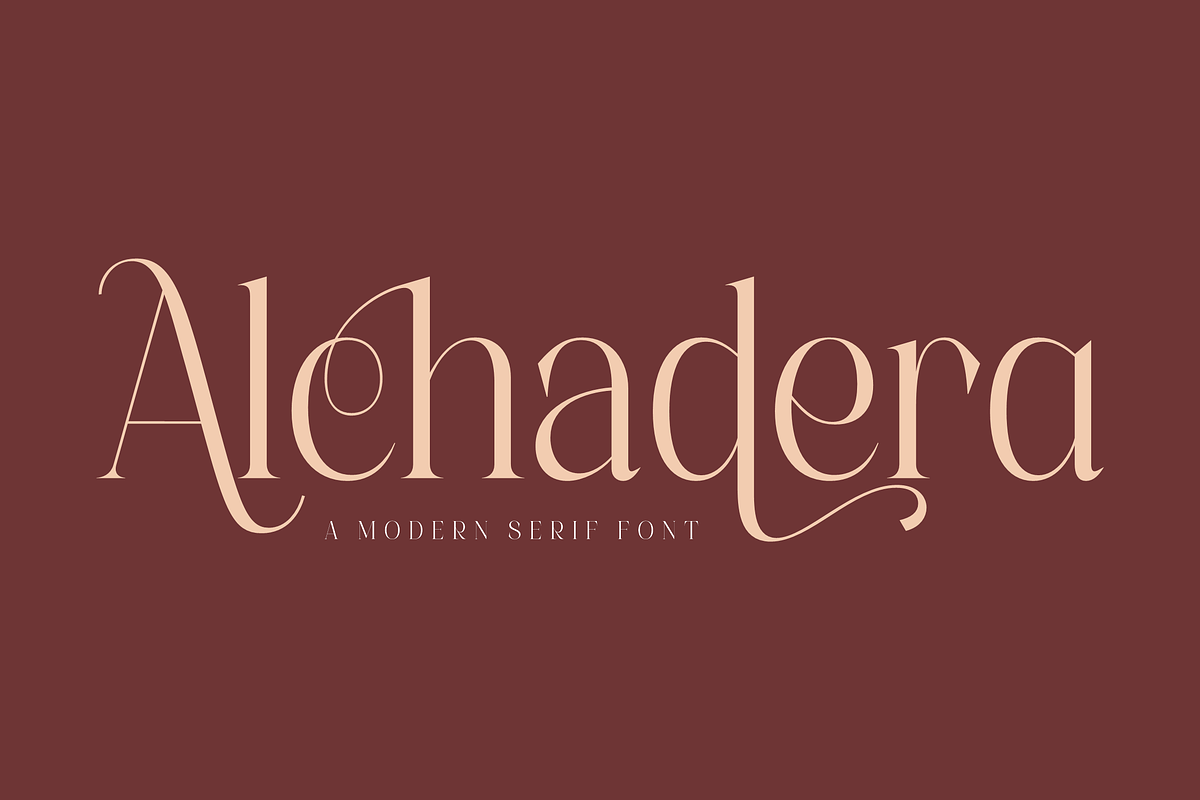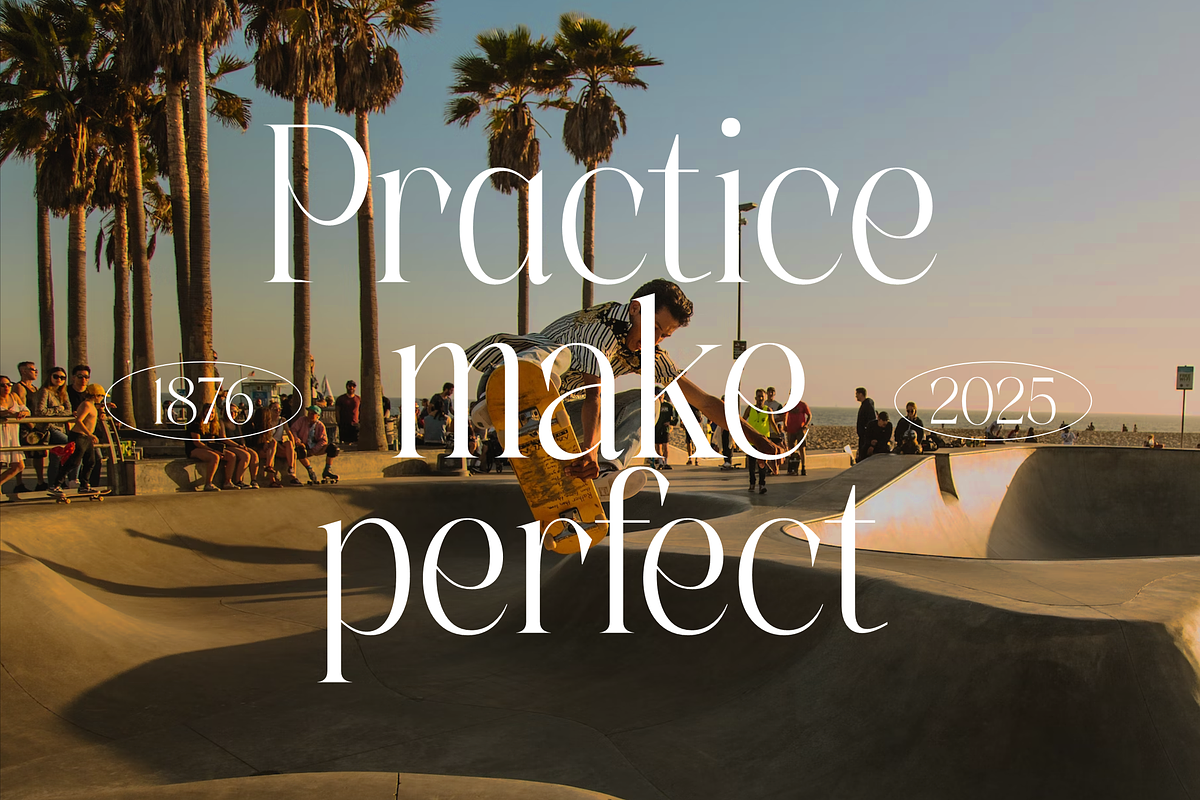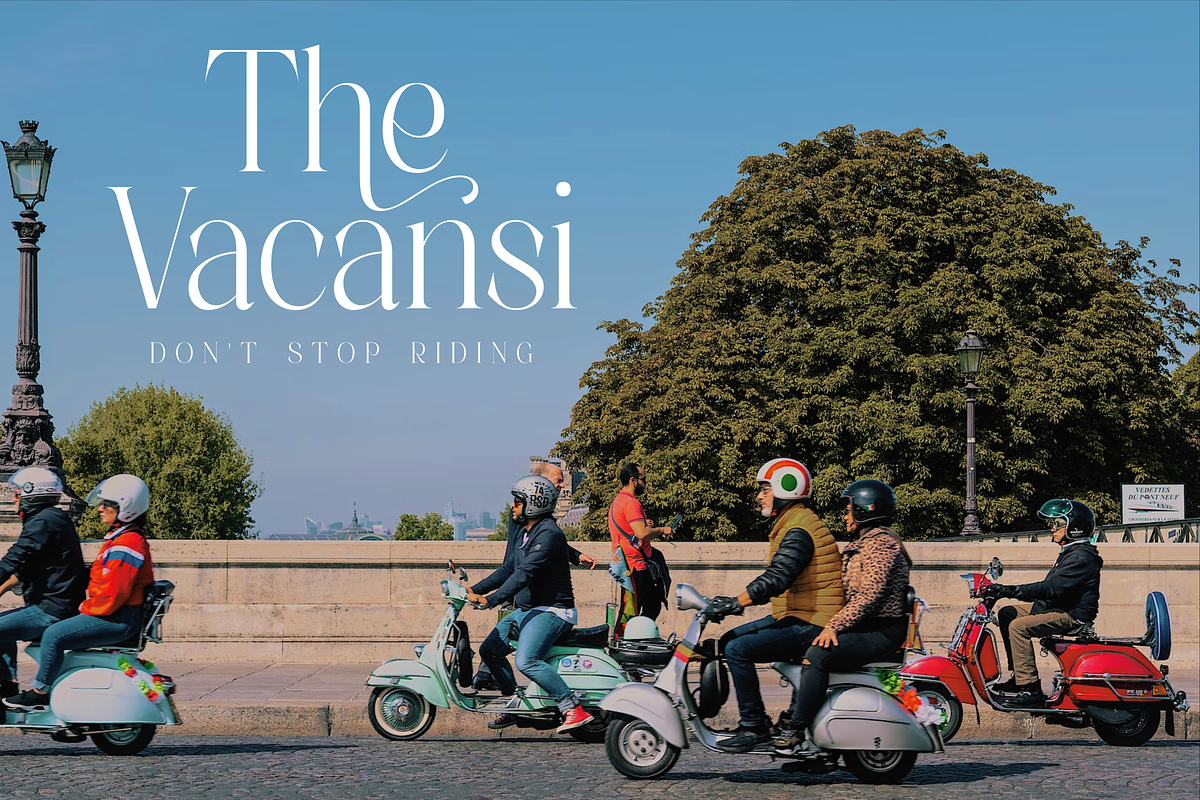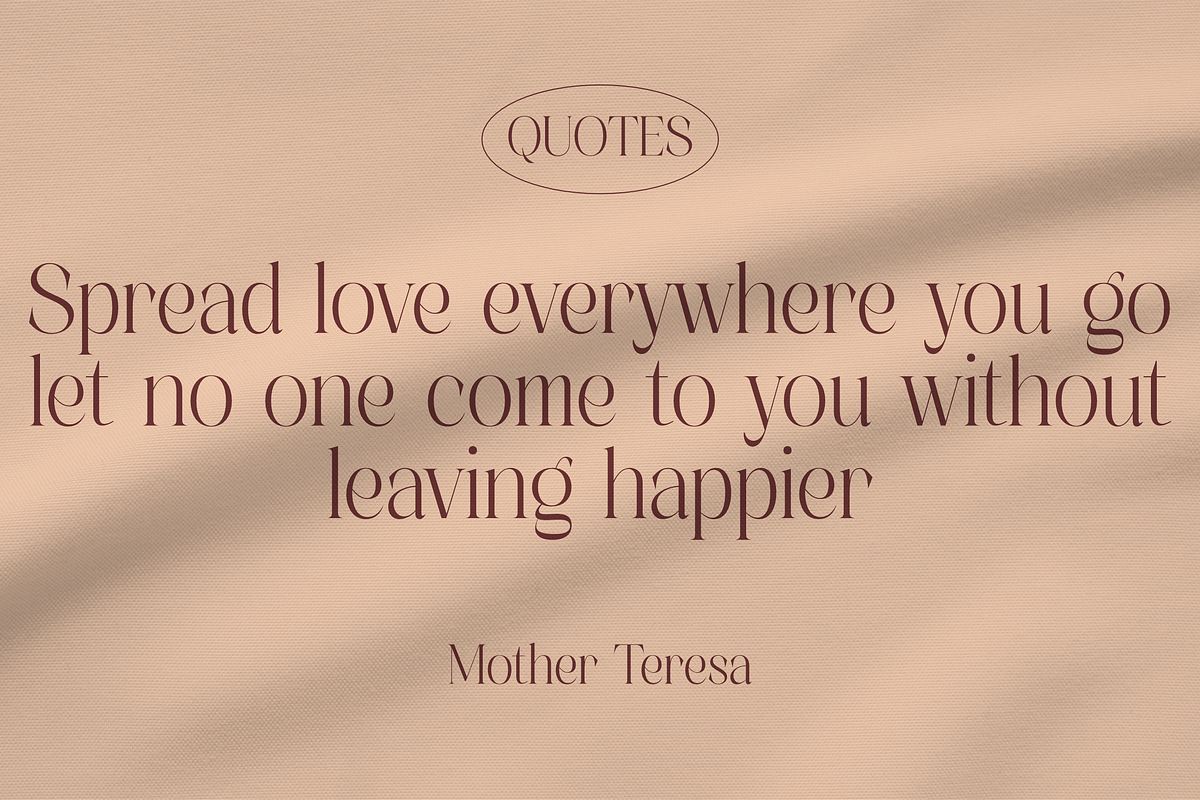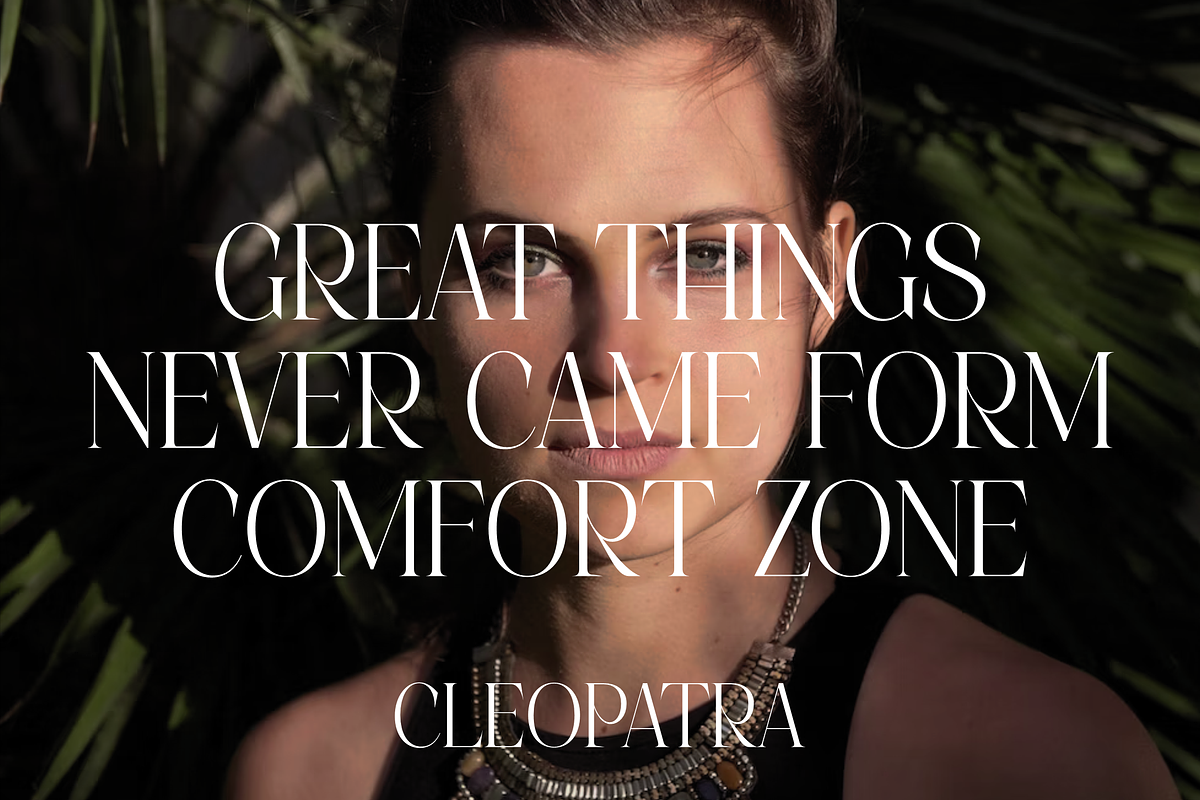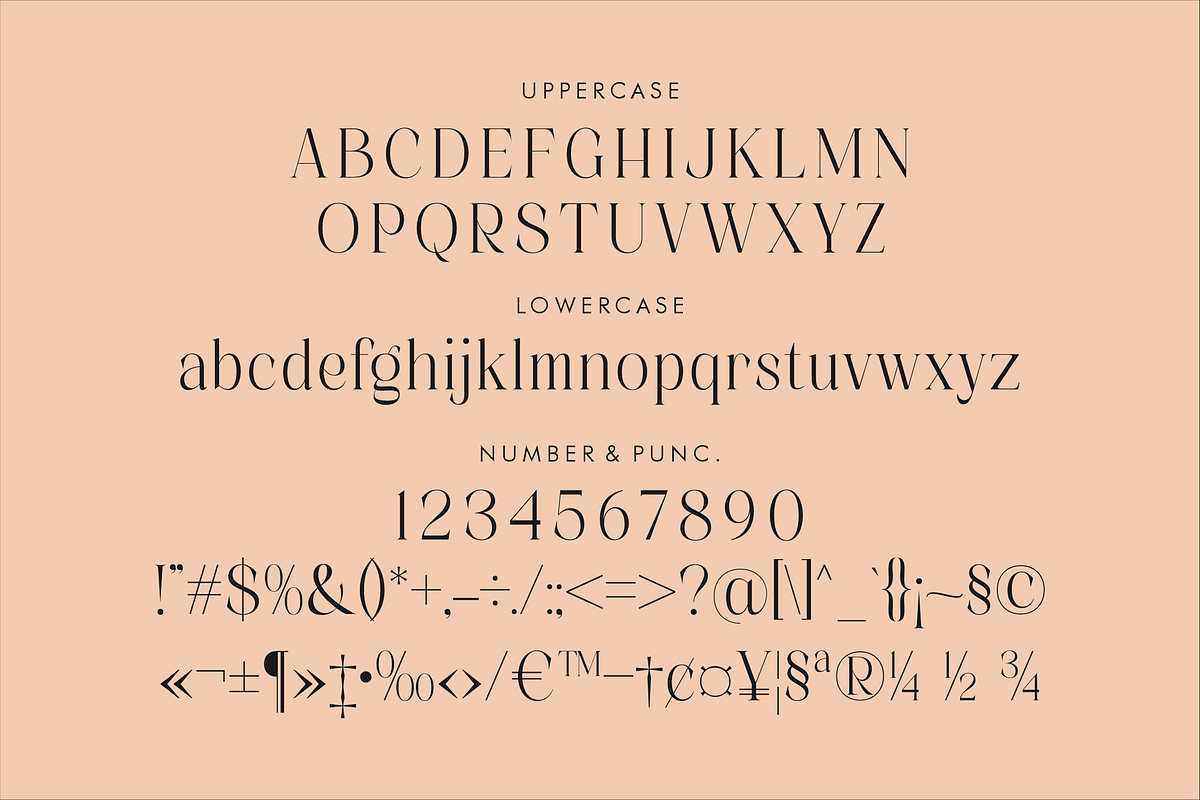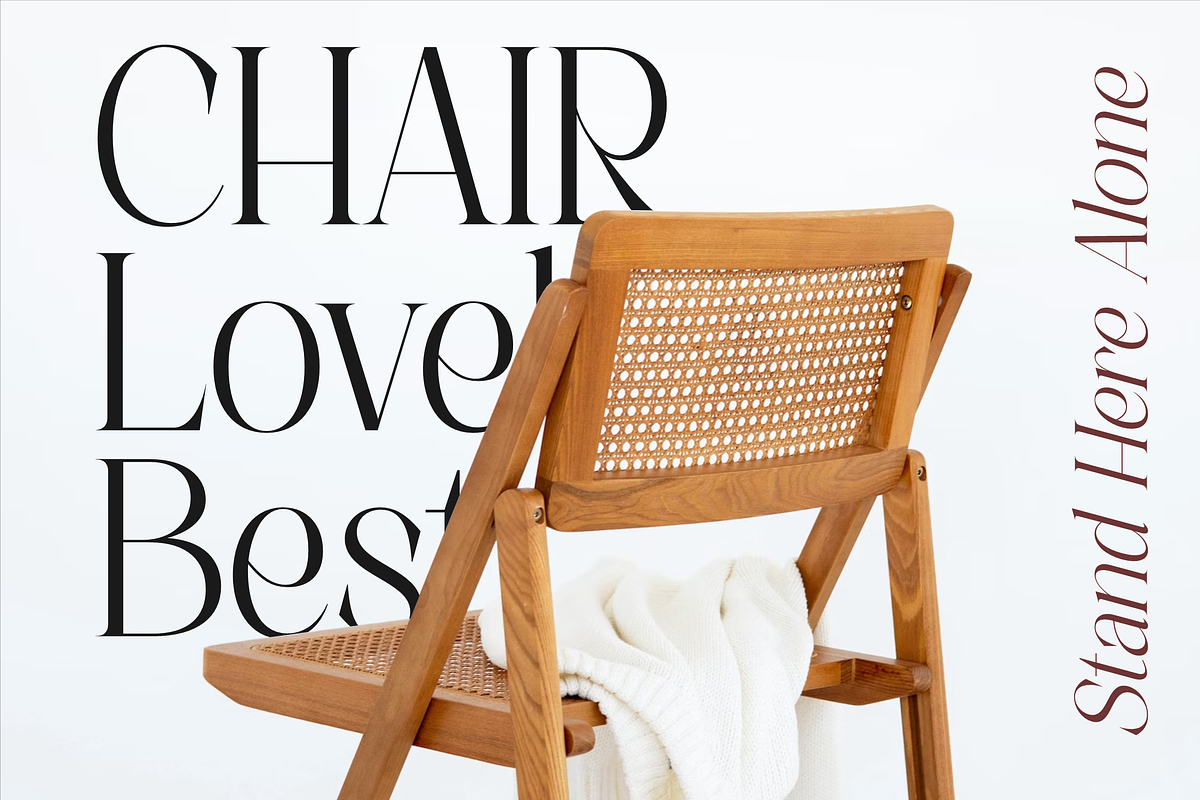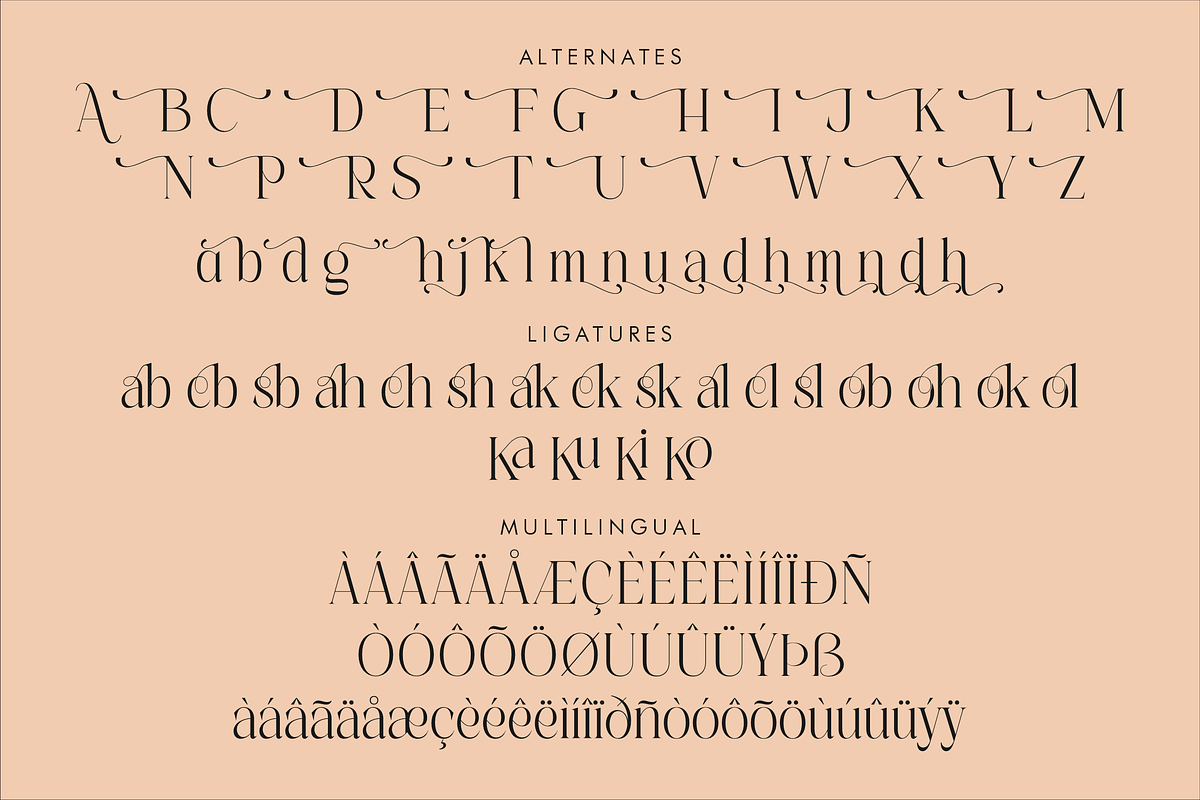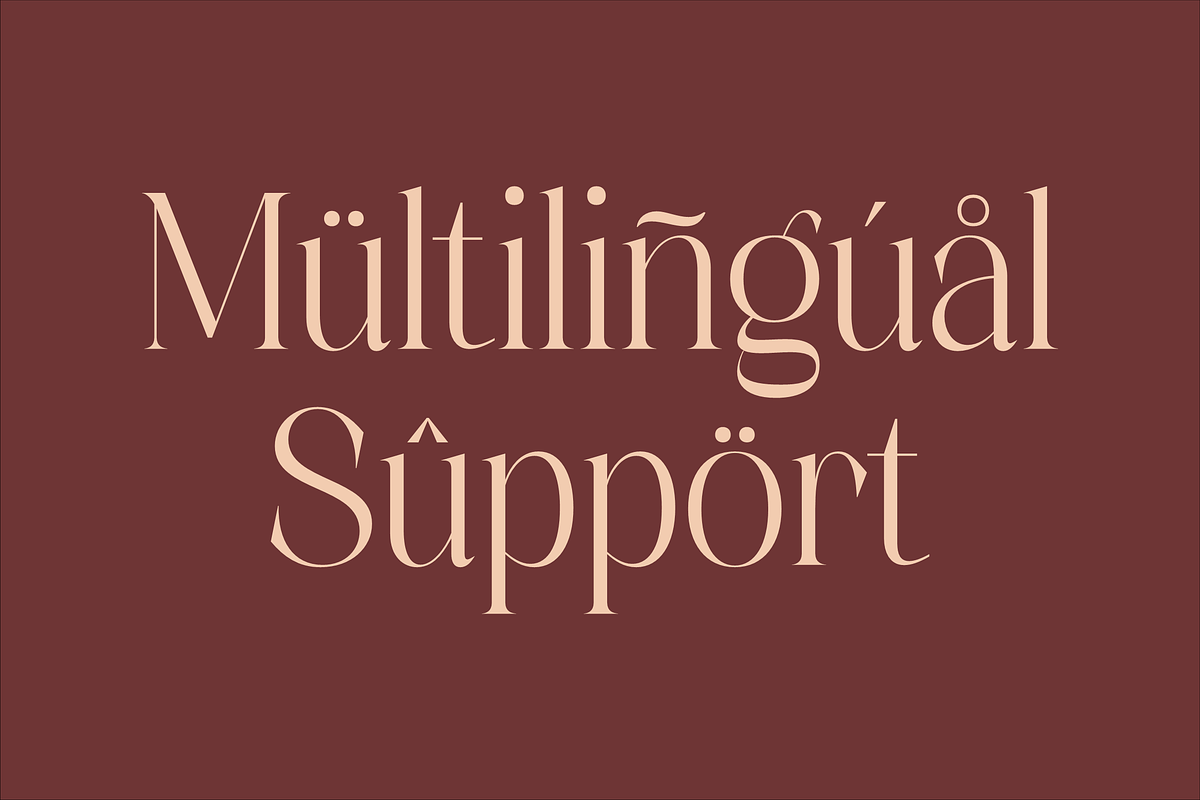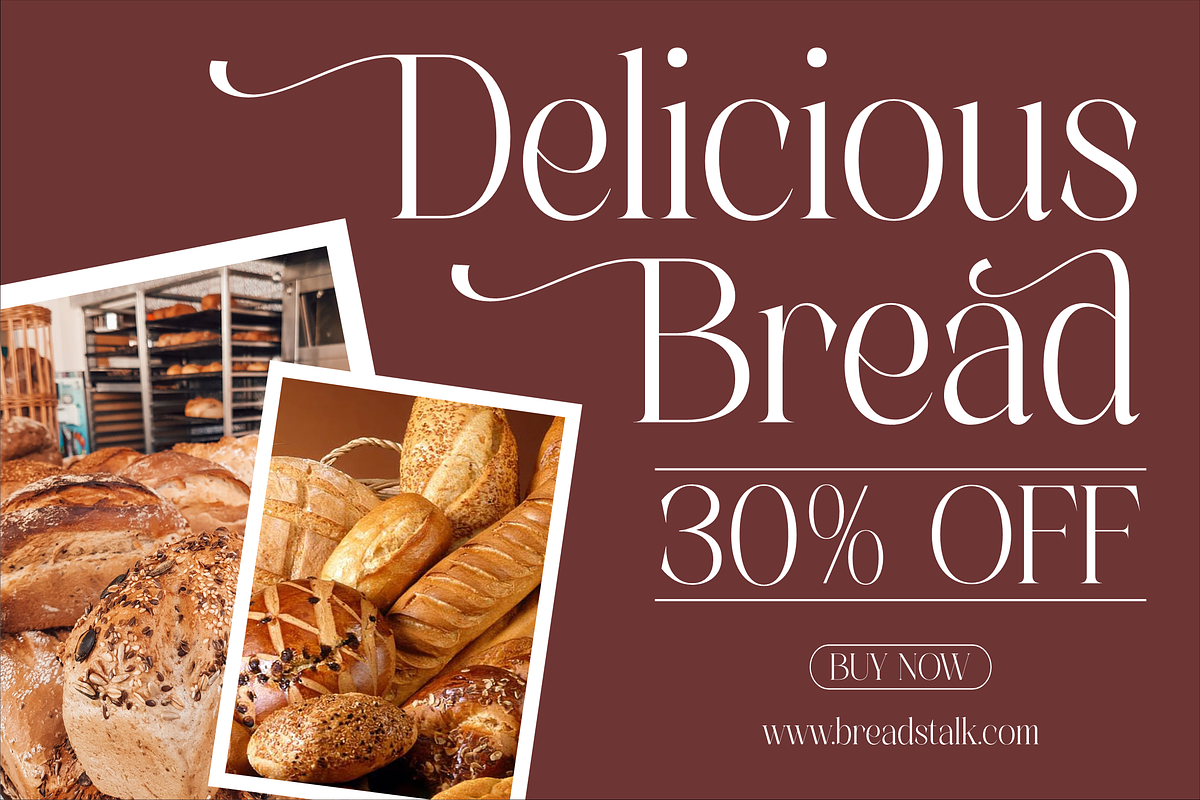
Alchadera A Modern Serif Font
Proudly present Alchadera Typeface , created by Storytype, A serif modern and classic typeface that has own unique style & modern look. This typeface is perfect for an elegant & luxury logo, book or movie title design, fashion brand, magazine, clothes, lettering, quotes, and so much more.